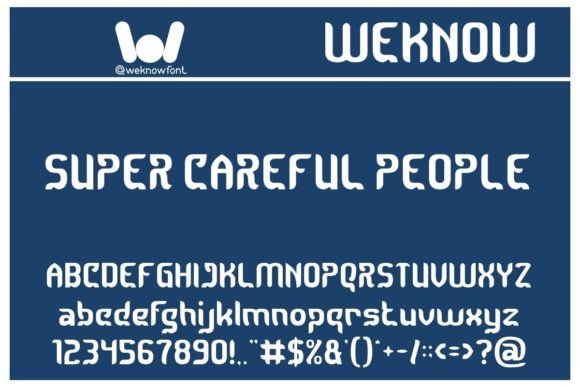
Introducing Super Careful People Font, the display font that exudes elegance and sophistication. This masterpiece is a creation of the renowned weknow, a name synonymous with typographic brilliance. Its meticulously crafted letters are engineered to captivate and enchant, adding a touch of magic to your creative endeavors.
Embrace the aesthetic charm of Super Careful People Font and watch your designs blossom into visual spectacles. Its graceful curves and striking lines command attention, making it the perfect choice for logos, logotypes, headlines, corporate identities, and brand identities. Unleash your creativity and let Super Careful People Font elevate your designs to new heights.
Step into the world of fashion and apparel with Super Careful People Font as your trusted companion. Its innate ability to blend seamlessly with diverse styles and aesthetics makes it an indispensable tool for creating eye-catching designs that resonate with your audience. Whether you're designing posters, music covers, movie titles, game interfaces, or magazine layouts, Super Careful People Font will add a touch of class and sophistication that sets your work apart.
Dive into the realm of publishing and let Super Careful People Font guide your creations. Its versatility shines through in book covers, comics, cartoons, and YouTube thumbnails. Its ability to evoke emotions and capture attention makes it the ideal choice for captivating your readers and viewers, leaving a lasting impression that keeps them coming back for more.
In the digital realm, Super Careful People Font reigns supreme. Its web-friendliness ensures seamless integration into your website designs, enhancing user experience and engagement. Its crisp and legible characters make it easy for visitors to navigate your site, while its distinct personality adds a touch of uniqueness that sets you apart from the competition.